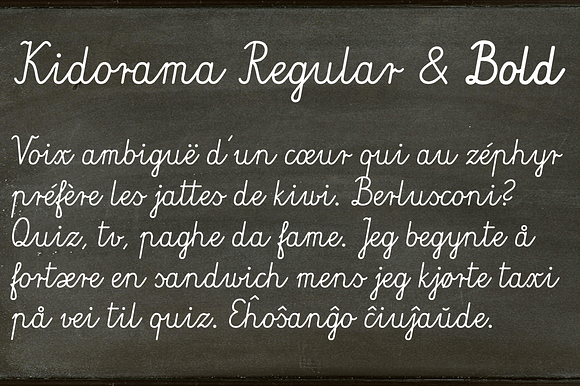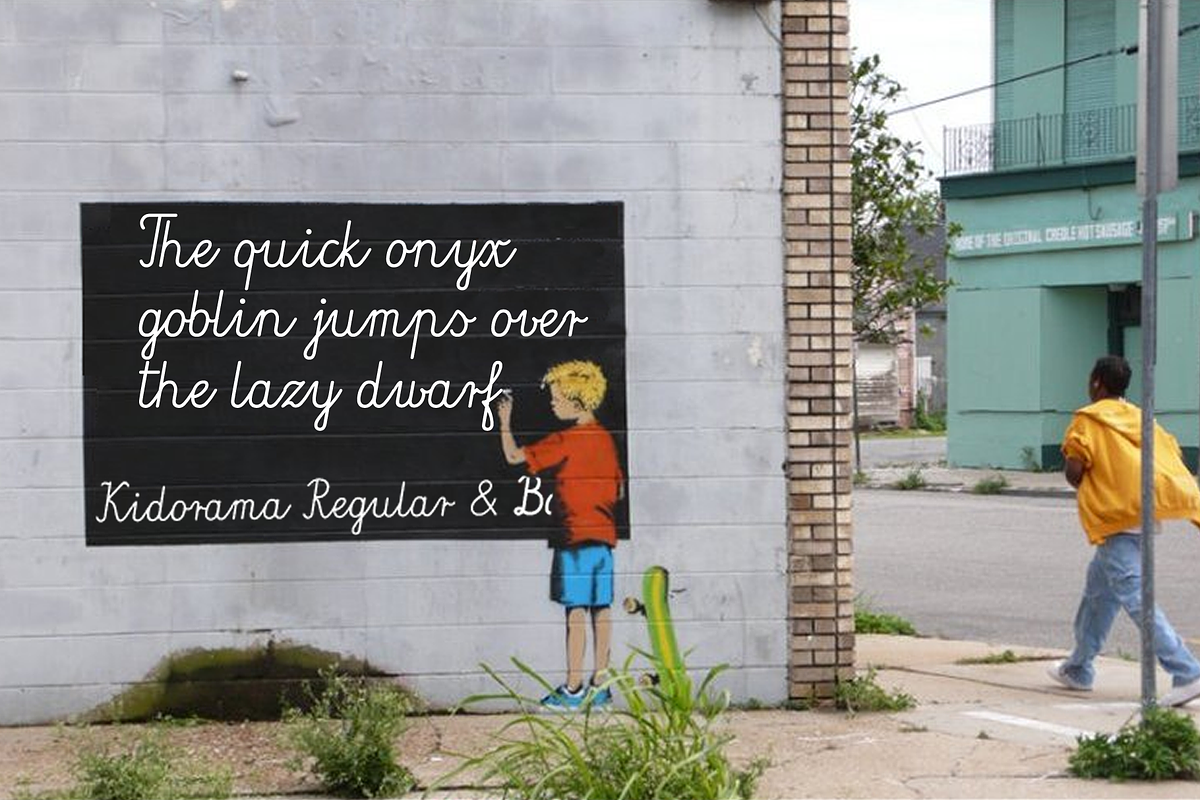
Kidorama - 2 fonts
Kidorama is a hand-drawn script inspired by the calligraphic models used in Polish primary school. This font is perfect for use in children’s oriented publishing.
- Language support includes Western, Central and Eastern European character sets, as well as Baltic and Turkish languages.
- Kidorama Regular
- Kidorama Bold